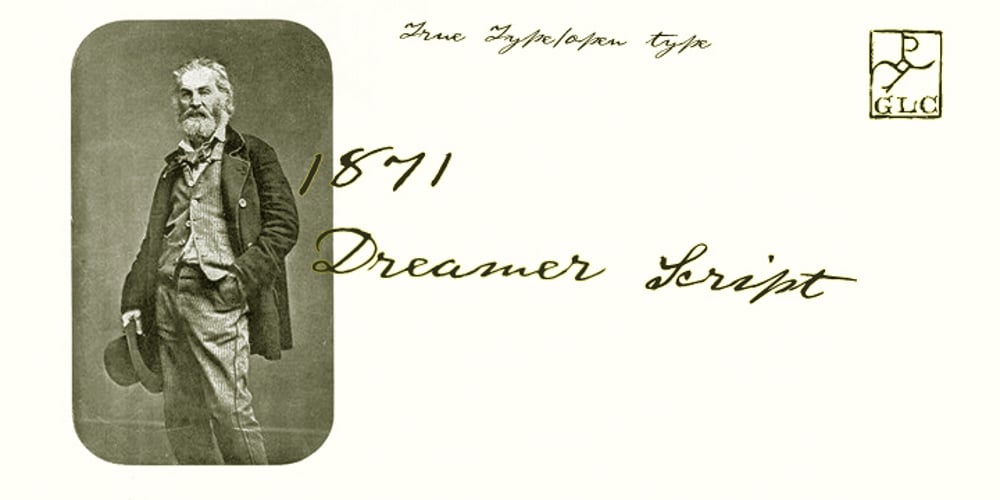
1871 Dreamer Script Font Family was designed by published by GLC. 1871 Dreamer Script contains 1 styles and family package options. This script font was inspired from a lot of manuscripts, notes and drafts, written by the famous American poet Walt Whitman. It is a very elegant type, in spite of a few curious ligatures, often concerning the r or z small letters. Notice the very characteristic “th”. It is used as variously as web-site titles, posters and fliers design or greeting cards, all various sorts of presentations, menus, certificates, letters. This font, in spite of its small size, supports very strong enlargements as well as small sizes ( the original size was about 36 to 48 pts ). When printed, it remains perfectly legible and elegant from 9/11 pts even if using an ordinary inkjet printer.